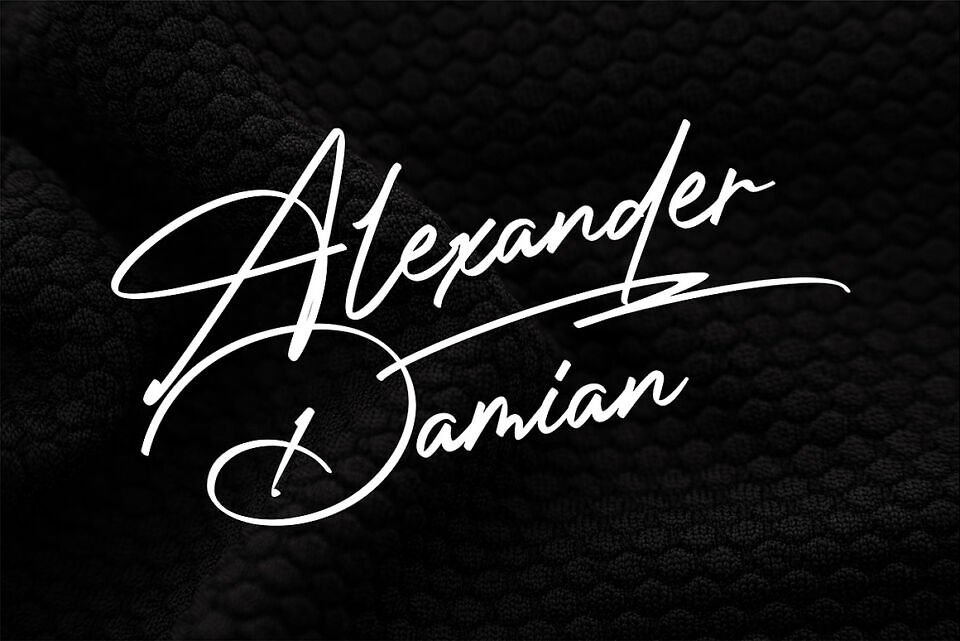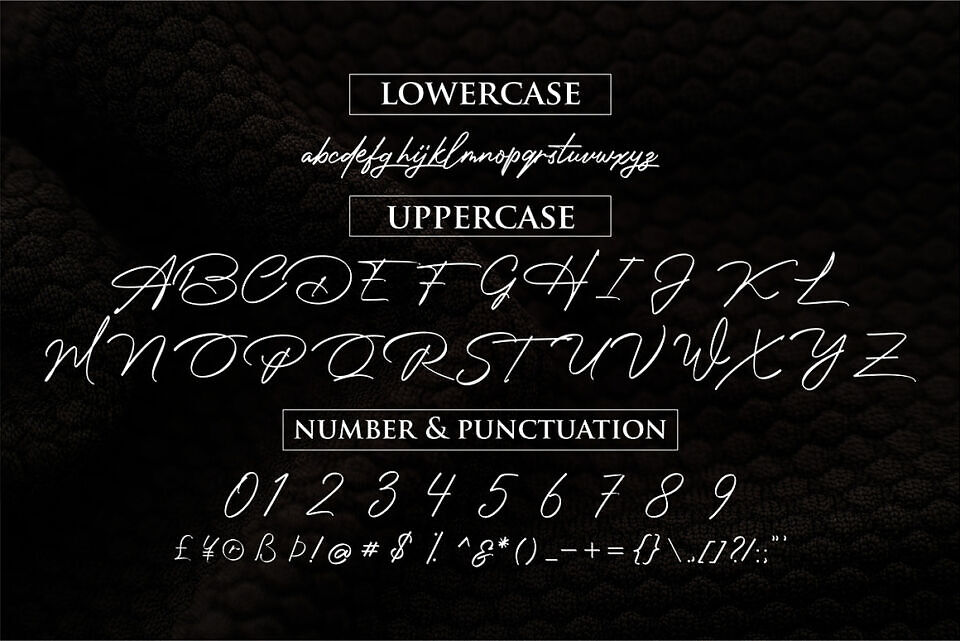
Photograph Signature Font
The Photograph Signature font by Typeline Studio is an elegant, handwritten typeface that exudes sophistication and charm. With smooth, flowing curves in both uppercase and lowercase letters, it captures a natural, personal writing style.
The font includes a comprehensive set of numerals and punctuation, enhancing its versatility for various design projects. Perfect for invitations, branding, or creative displays, this font adds a refined, artistic touch. Its seamless design and attention to detail make it an ideal choice for those seeking a stylish, handcrafted aesthetic in their work.